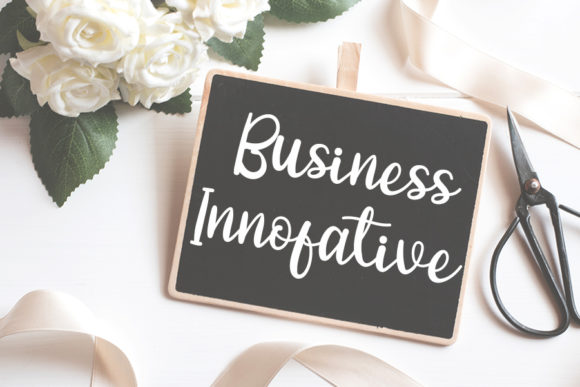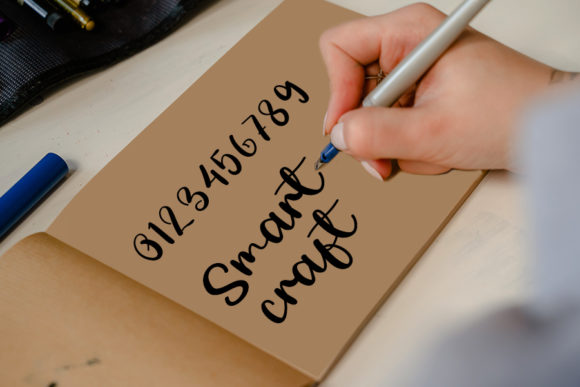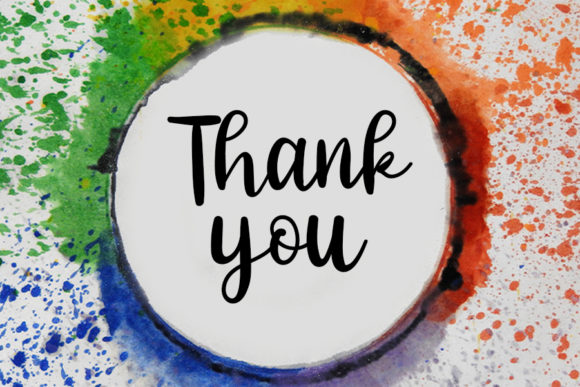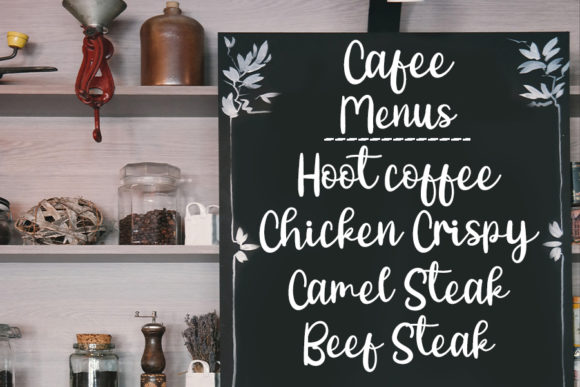
Lovely Farmhouse Font
About Lovely Farmhouse Font
Lovely Farmhouse is a delicate and elegant handwritten font. Its distinct and well rounded letters make this font a masterpiece. Fall in love with its incredibly versatile style and use it to create spectacular designs!